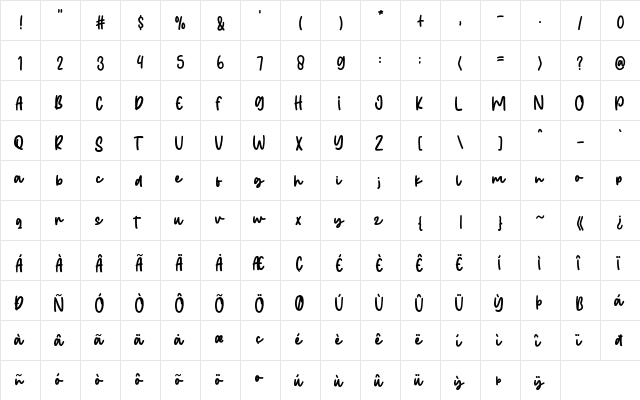
Better You Smile Script
| Style | Script |
| Foundry | Stefie Justprince |
| Designer | Stefie Justprince |
Design Context for Better You Smile Typeface
Better You Smile brings a calligraphic fluidity to the page — its connecting strokes and expressive curves give it an unmistakably human quality.